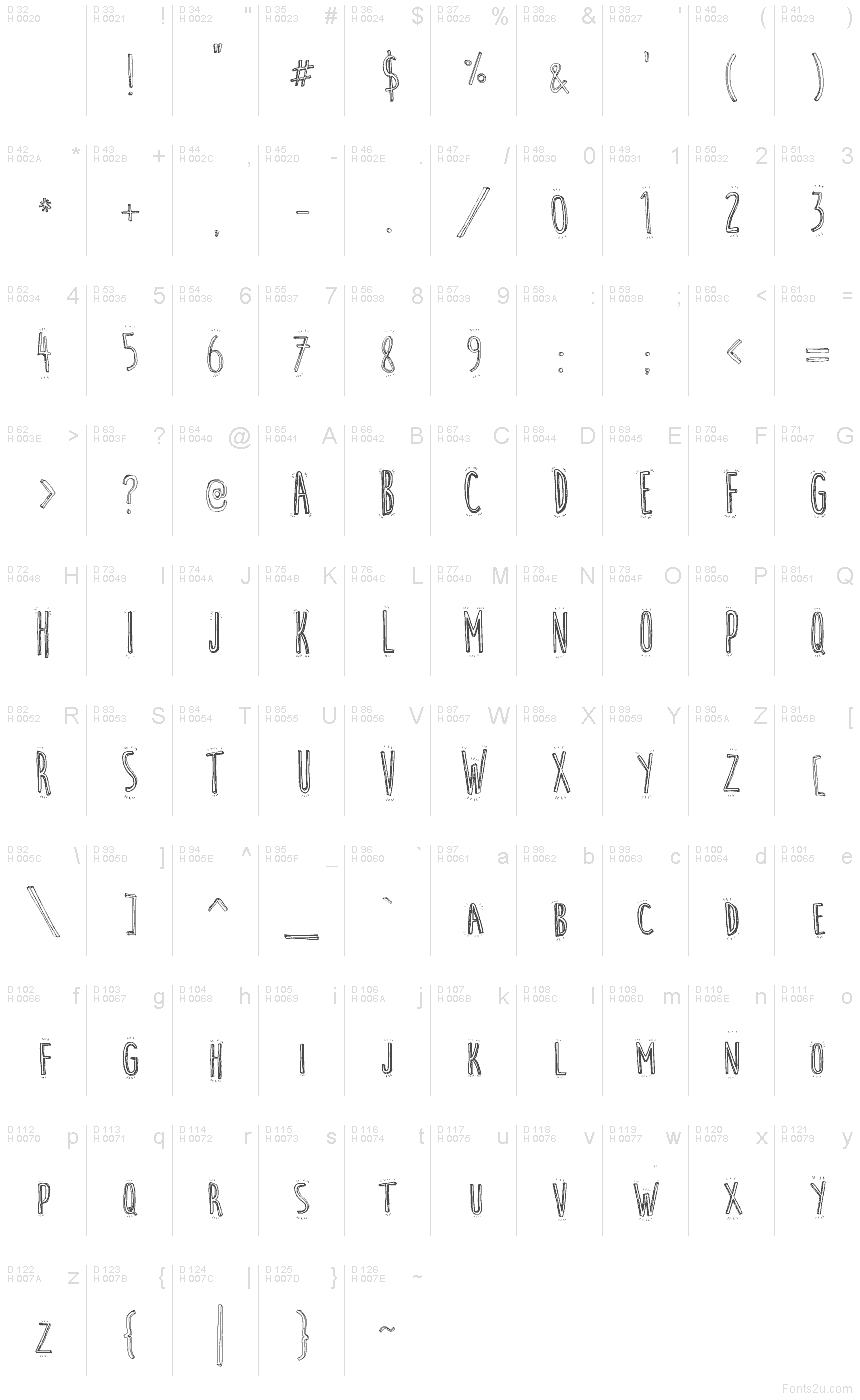
Cute Cartoon Regular
Cute Cartoon font by Galdino Otten Fonts is a condensed display font that carries creative, decorative elements throughout its characters. It has a cartoonish style that brings sketchy outlines to make the typeface look unique. Casual and playful, this free font has whimsical energy and a fun vibe ideal for your most original design projects.
Cute Cartoon can be used for logos, branding, social media cover photos, digital artworks, posters, flyers, T-shirts designs, book covers fonts related to children's aesthetics like coloring books or educational materials. Its consistent visual appearance makes it also suitable for event invitations like birthdays or casual weddings and even some unconventional business cards.